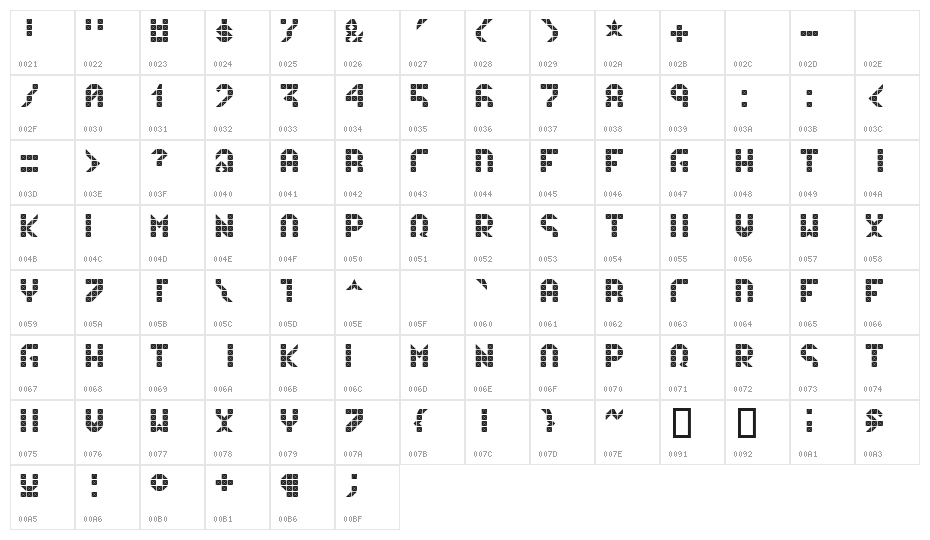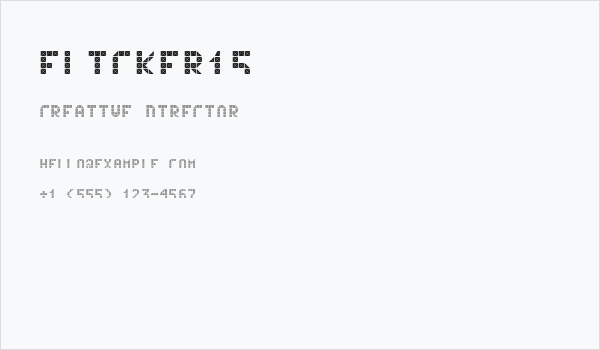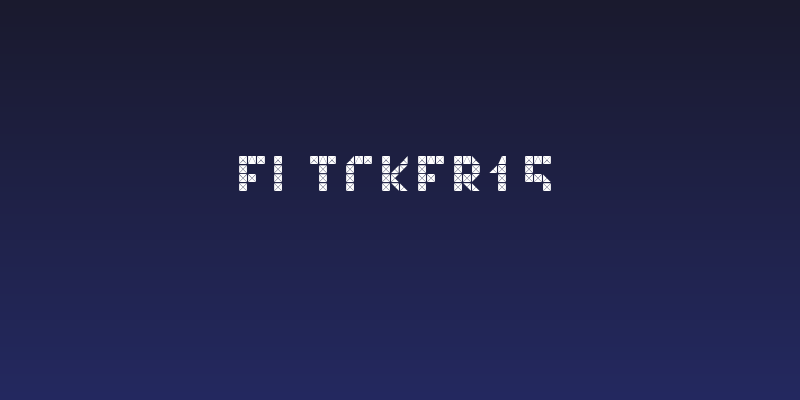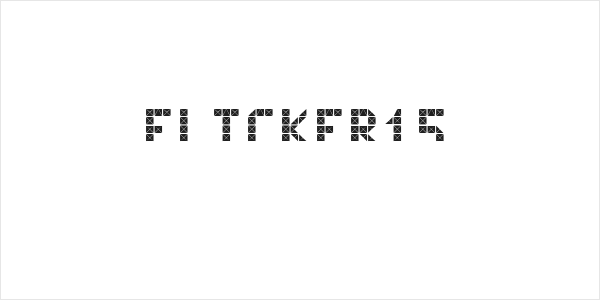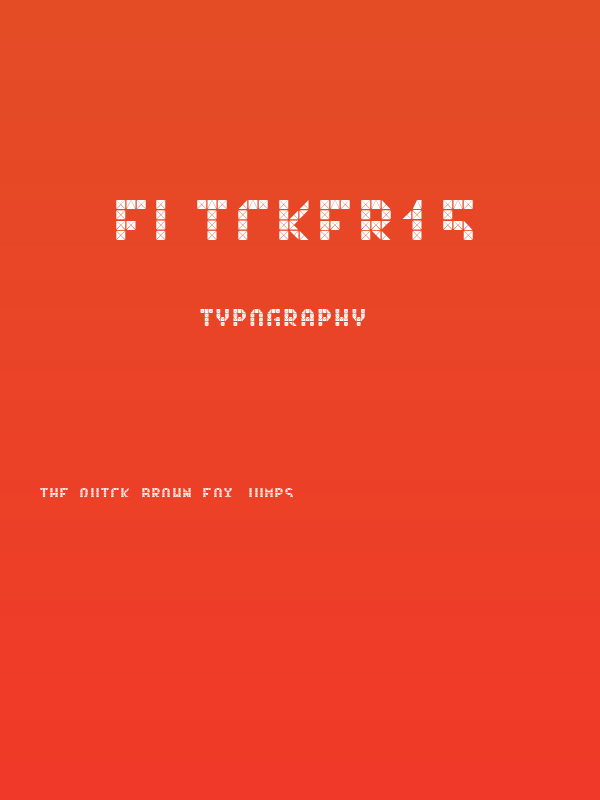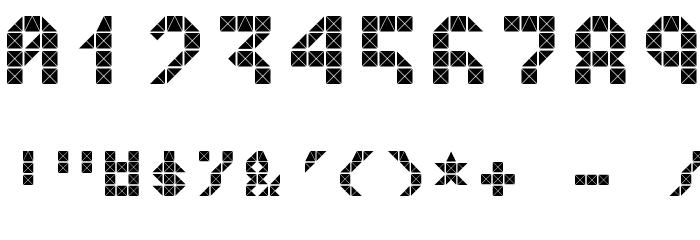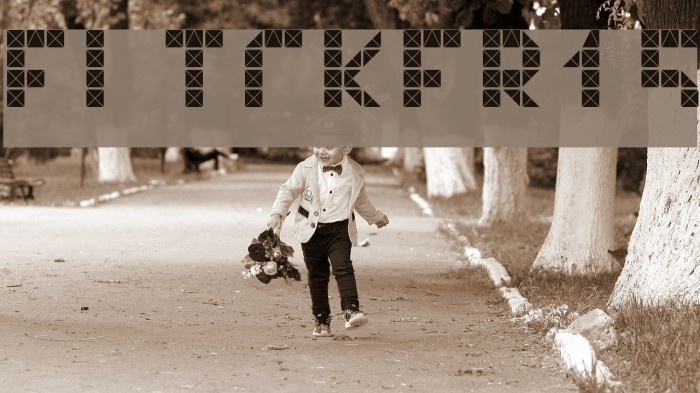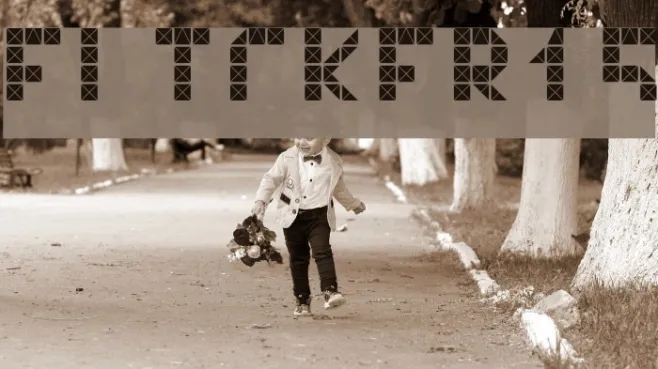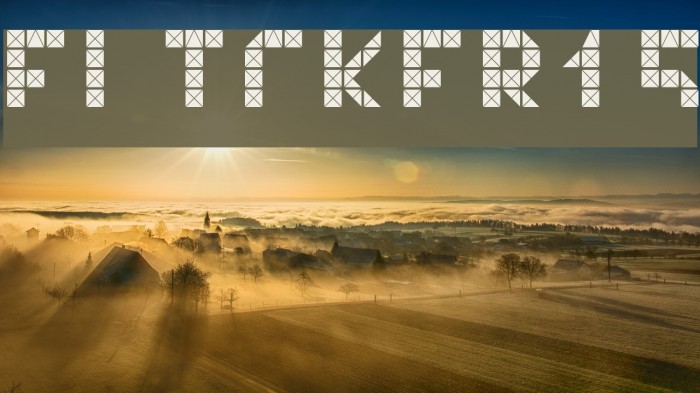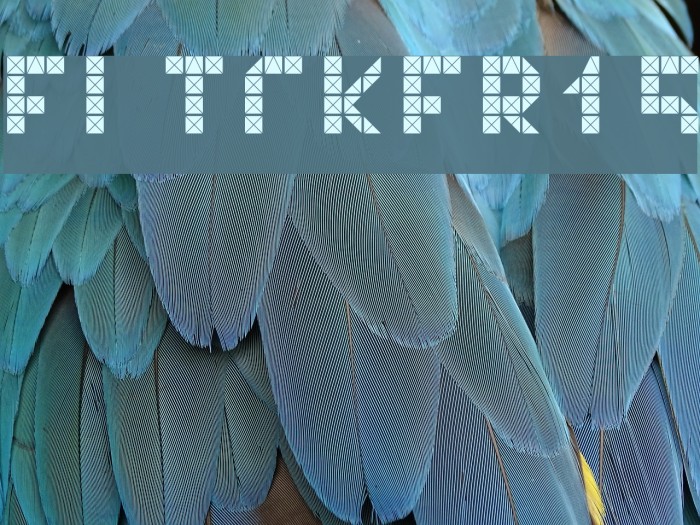
Flicker15 Font
Flicker15 Description
This font features a geometric, mosaic-like design with each character composed of small triangular shapes. The style is bold and eye-catching, making it ideal for decorative purposes. The characters are uniform in height, with a consistent pattern that creates a cohesive look across the entire set. The font includes both uppercase and lowercase letters, numbers, and a variety of special characters. Its unique structure gives it a modern and artistic feel, suitable for projects that require a standout visual element.
| Use Case | Logos, Posters, Digital Art |
| Proposed Projects | This font is perfect for artistic posters, modern branding, creative logos, and digital art projects that require a distinctive and bold visual style. |